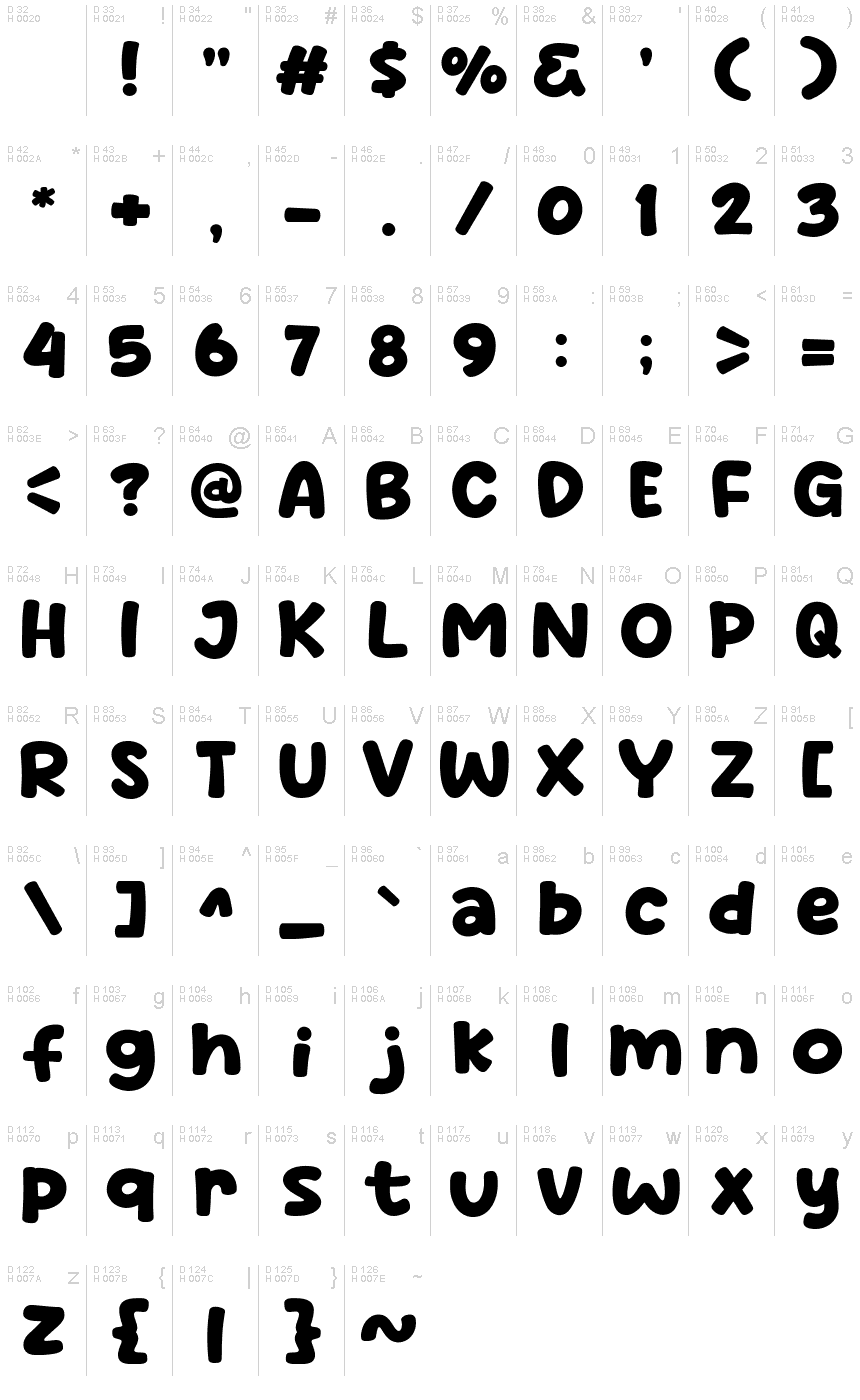
Hugmate
Introducing Hugmate - a bold, cartoon display font designed by Khurasan. Perfect for creating eye-catching designs and logos, this versatile font is ideal for branding projects, children's books, and comics.